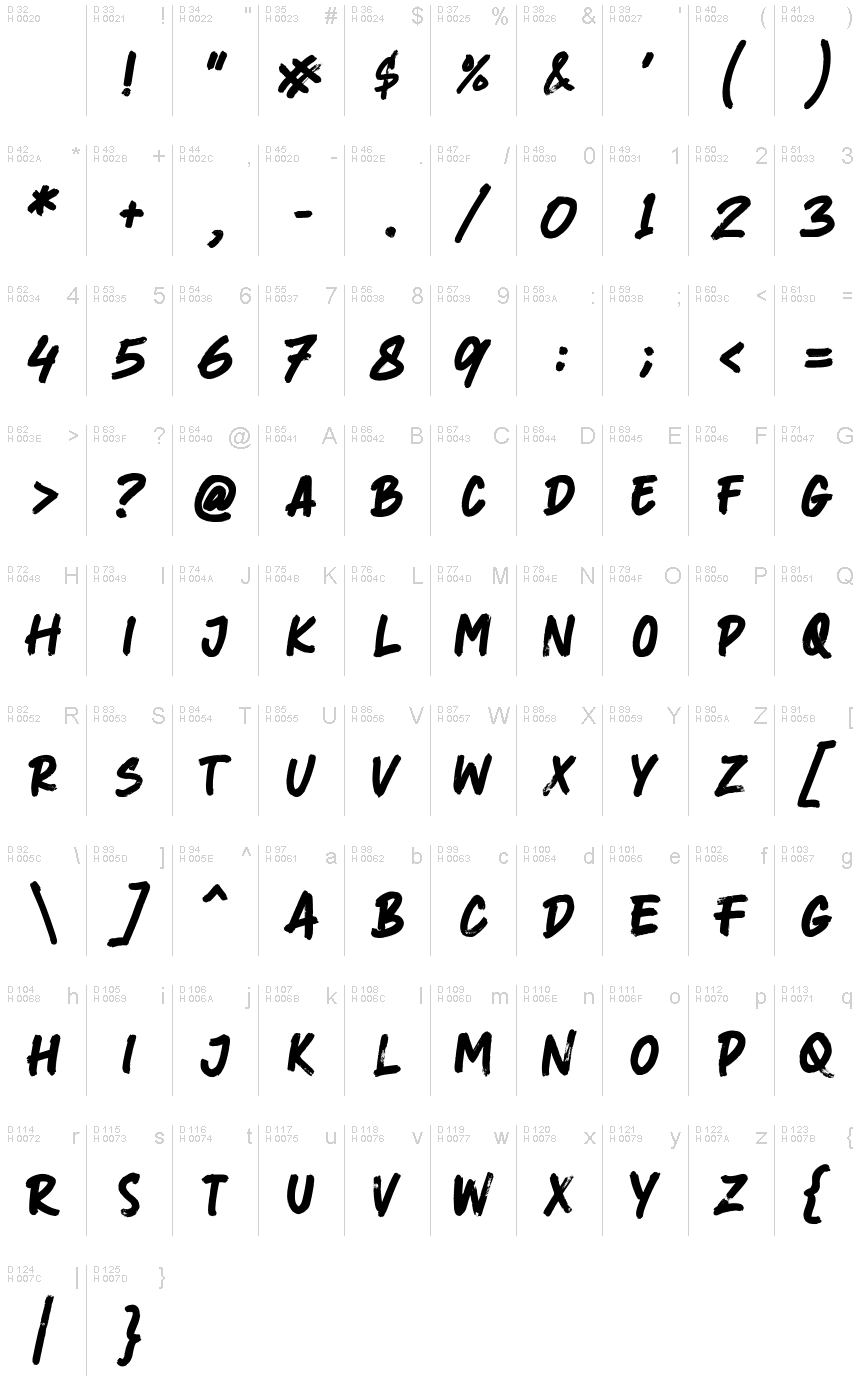
TAGLINER
Tagliner is a captivating brush font crafted by Excellent Ritma Florendia. This all-caps typeface exudes a raw, expressive energy with its distinctive brush-like strokes. The organic, handwritten aesthetic lends an artisanal charm, evoking a sense of authenticity and craftsmanship. Tagliner's dual sets of uppercase and undercase characters offer endless possibilities for creative typographic compositions.
Tagliner's versatility makes it a compelling choice for a wide range of design projects. Its bold, attention-grabbing presence lends itself well to logo designs, product labels, and packaging. The font's dynamic brush-stroke style also shines in large-scale applications, such as posters, event branding, and digital headers. Tagliner's unique character can elevate any design, infusing it with a captivating, handcrafted aesthetic.